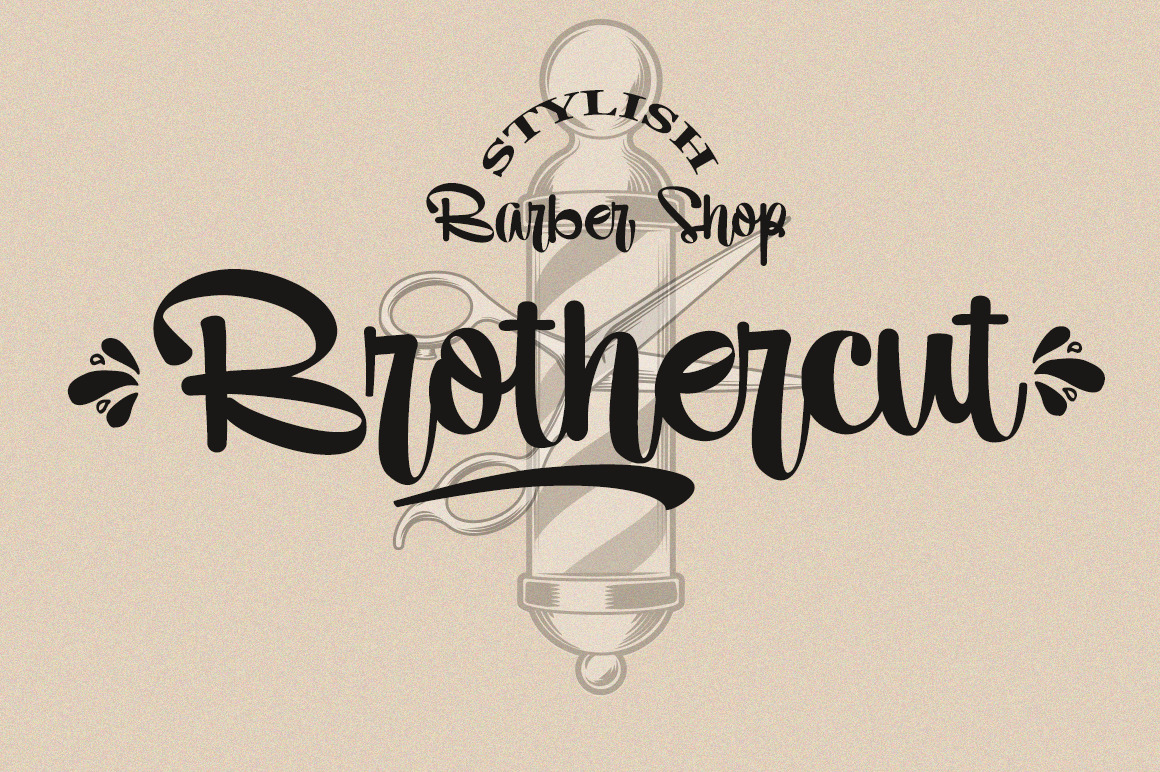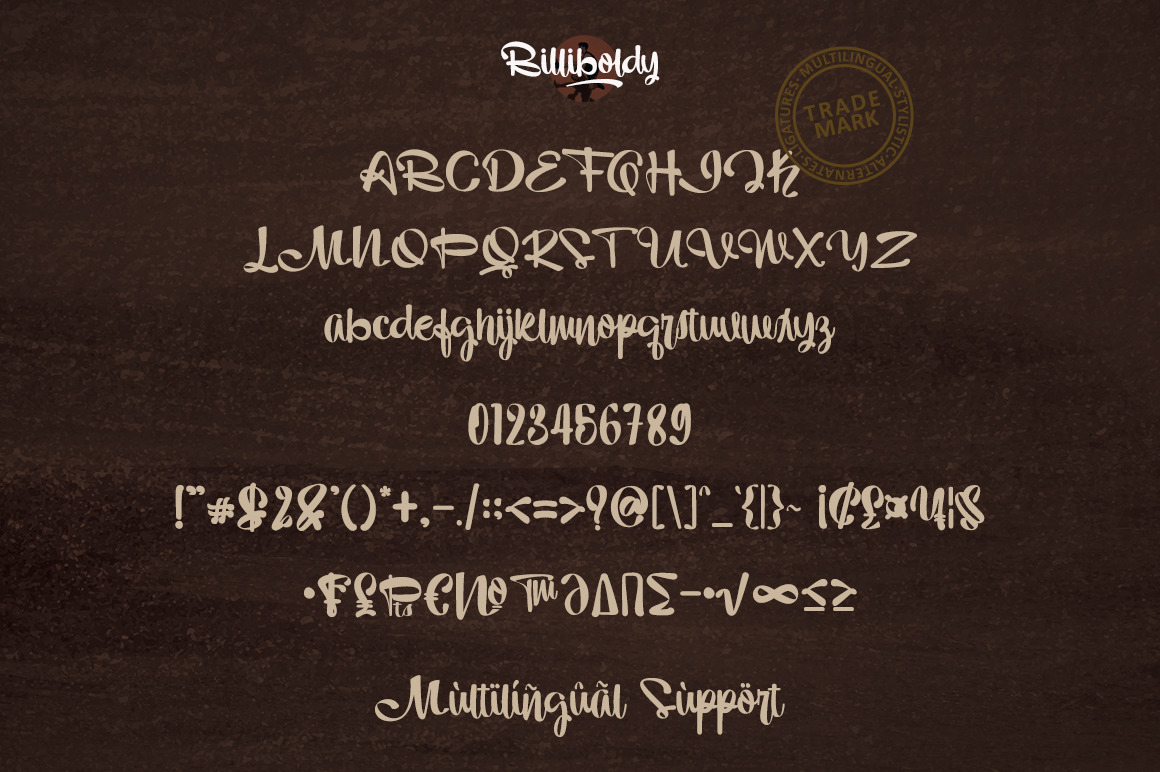
Billiboldy Font
Billiboldy is an elegant script font. Not too thin and not too thick, balanced and varied, this font was designed to enhance the beauty of your projects.
- Swash
- Stylistic Alternates
- Multilingual support for 91 Country
- Special underscore character 7 style
- Special doodles for front and back of letters or sentences